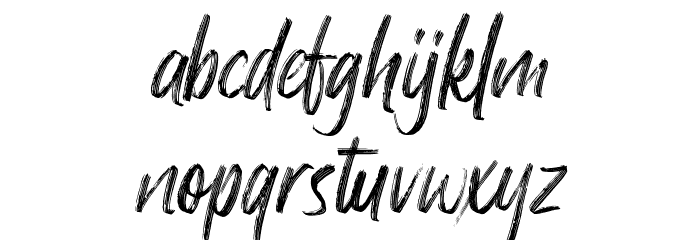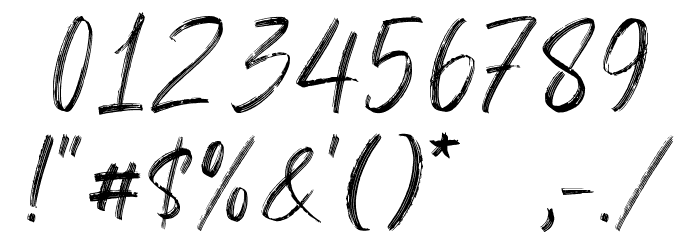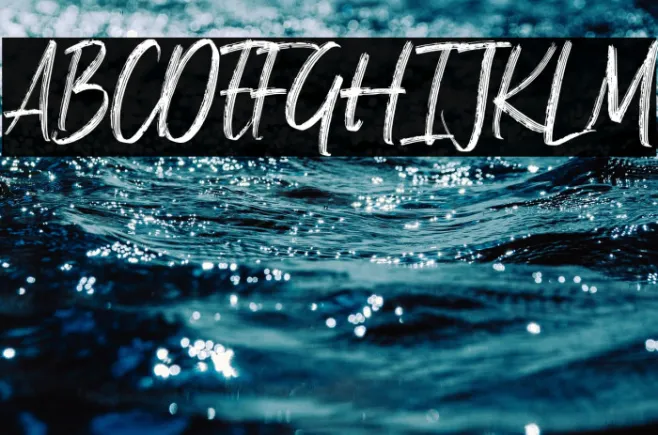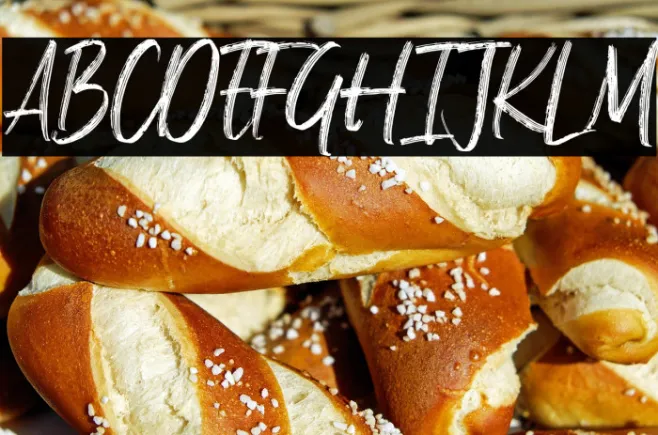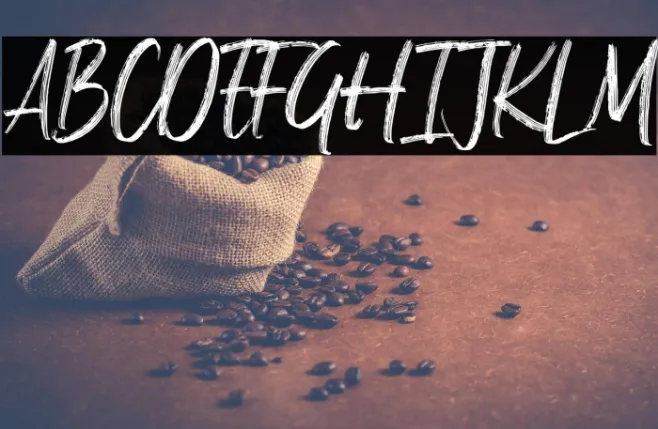
Highfilm Font
This font exhibits a dynamic and energetic handwritten style, characterized by its brush-like strokes and expressive flair. The uppercase and lowercase letters maintain a consistent flow, with varying stroke widths that add a sense of movement and vitality. The numerals and special characters complement the alphabet with similar brushstroke aesthetics, enhancing the overall cohesive look. This font's artistic and informal nature makes it ideal for creative projects that require a personal touch. The irregularities in stroke thickness and the slightly slanted orientation contribute to its casual and approachable feel.
A dynamic, brush-style handwritten font with expressive strokes.
- Font: Highfilm
- Proposed Projects: Ideal for artistic projects, greeting cards, posters, and branding that seeks a personal, creative touch.
- Category: Handwritten
- Use Case: Logos, Posters, Creative projects